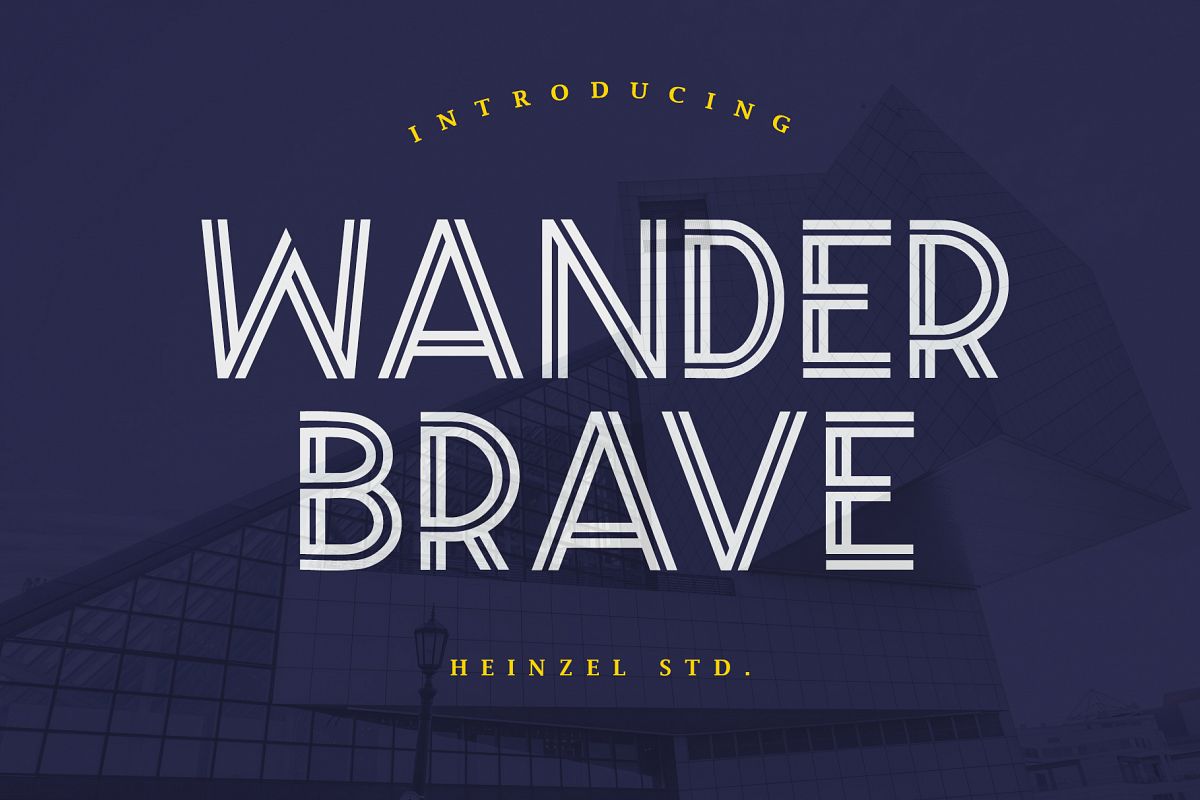
Wander Brave Typeface
Wander Brave Italic
Wander Brave
Wander Brave is an elegant and strong font that can be used as a signboard, poster, brand identity, advertisement, etc. You will get this font in the open type .otf format and true type .ttf format, so make sure you use adobe illustrator, Photoshop & InDesign.